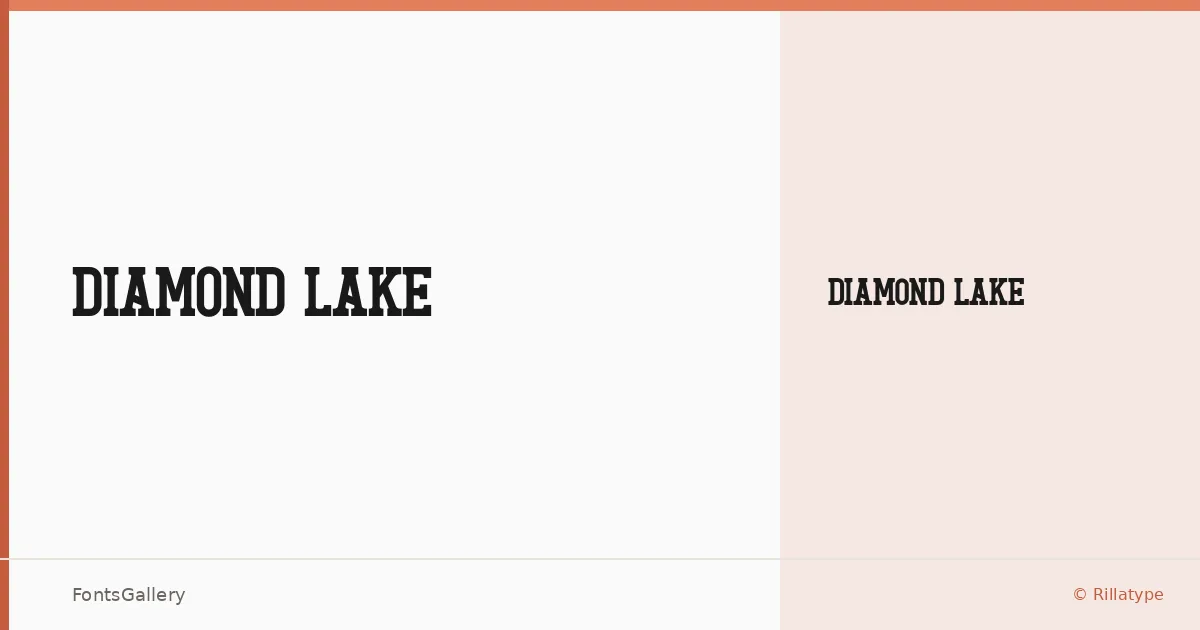
About Diamond Lake Font
There is a satisfying weight to these serifs — the kind of deliberate, bracketed slabs that feel carved rather than drawn. Diamond Lake comes from Rillatype, designed by Gustian Agung Asprilla, and it arrives as a single Regular cut in OTF format, built with enough personality to carry a composition on its own.
This is a slab serif with a distinctly rustic and vintage character — the sort of face that recalls hand-lettered signage and old broadsheet headlines without pretending to be a revival. The forms lean classic and bold, with stroke contrast and slab details that read confidently at large sizes. One weight, handled well, is often more useful than a sprawling family used carelessly.
It earns its place in branding work, poster headlines, logo lockups, and T-shirt graphics — anywhere the job calls for presence and a hint of age. Pair it against the clean geometry of Helvetica or Josefin Sans to let the rustic texture breathe, or try it alongside Asap for a friendlier editorial contrast; Armelie and Kactigona offer more expressive companions when the project leans decorative.